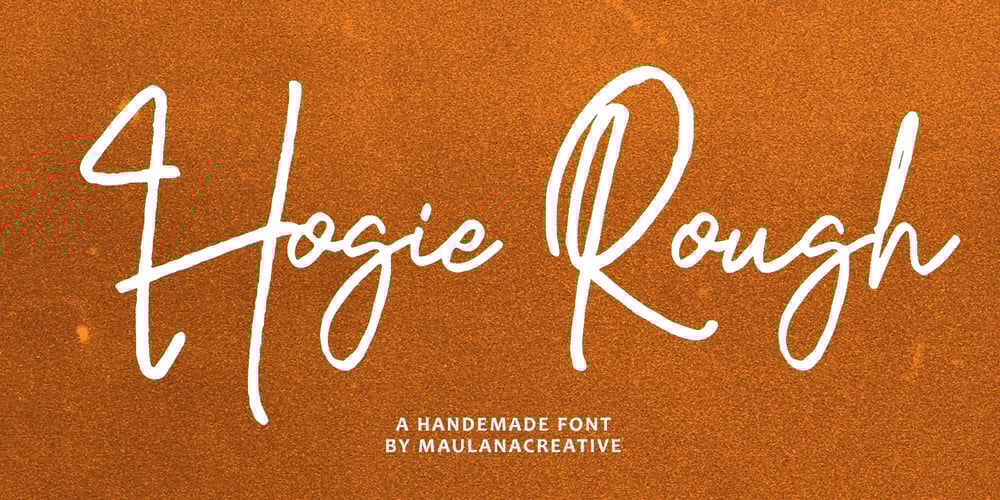
Hogie Rough Font Family was designed by Gilang Maulana and published by Maulana Creative. Hogie Rough contains 1 styles and family package options. Hogie Rough handmade script font. This font is good for logo design, Social media, Movie Titles, Books Titles, a short text even a long text letter and good for your secondary text font with signature or script typeface. Make a stunning work with Hogie Rough font.Cheers,Maulana Creative